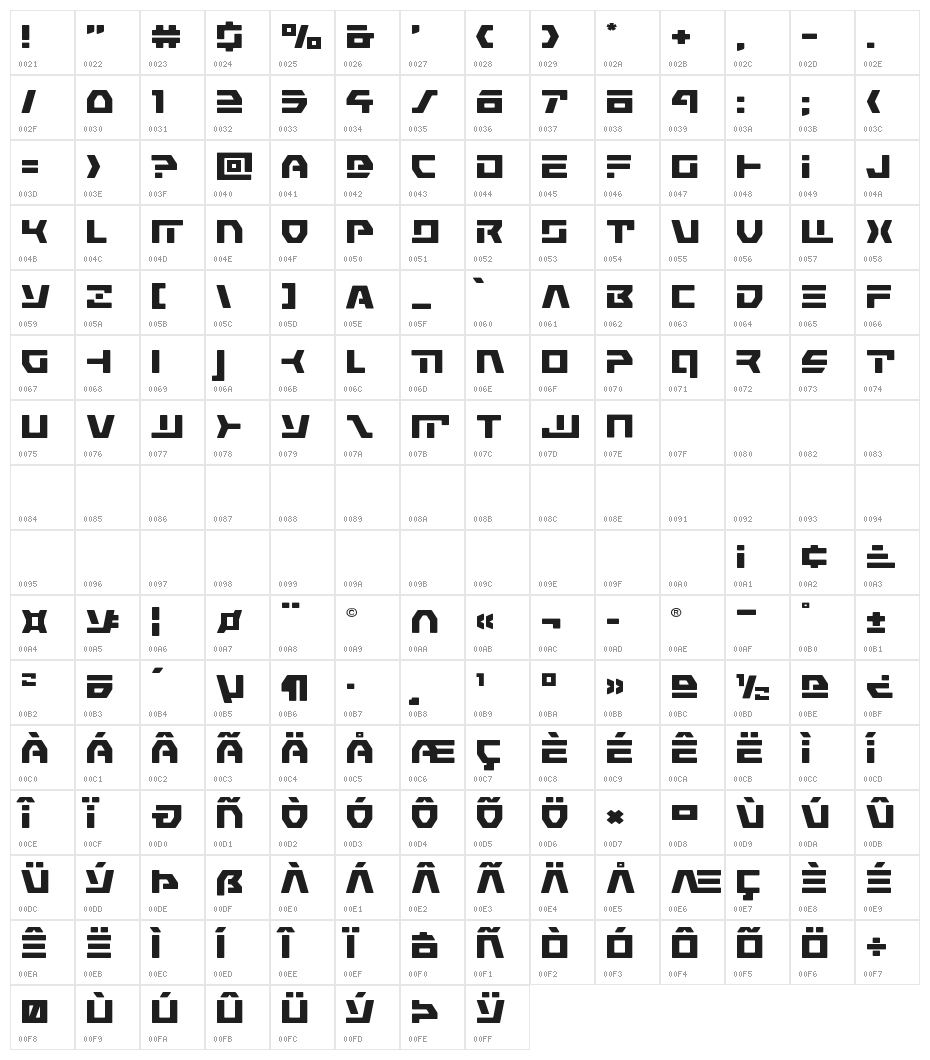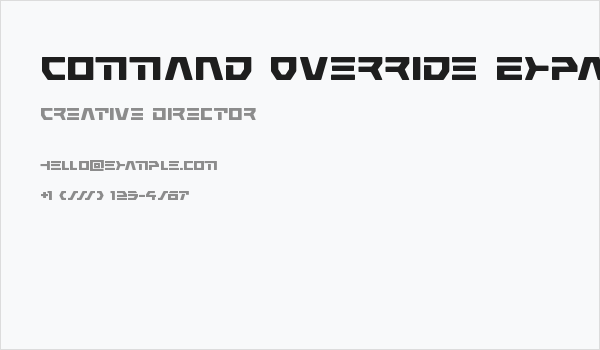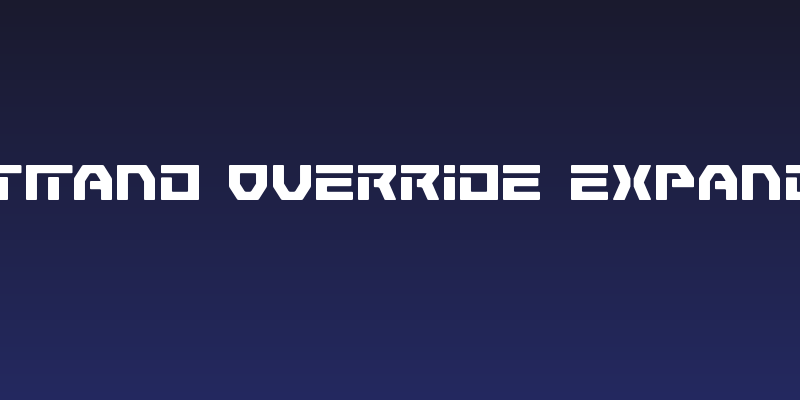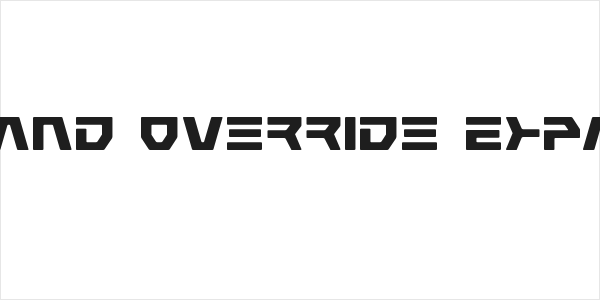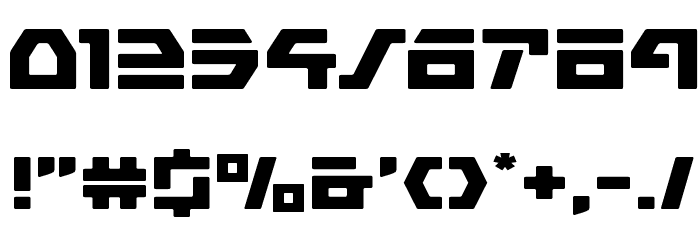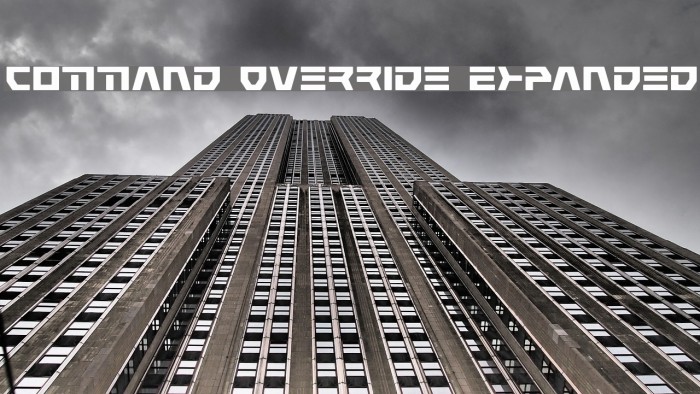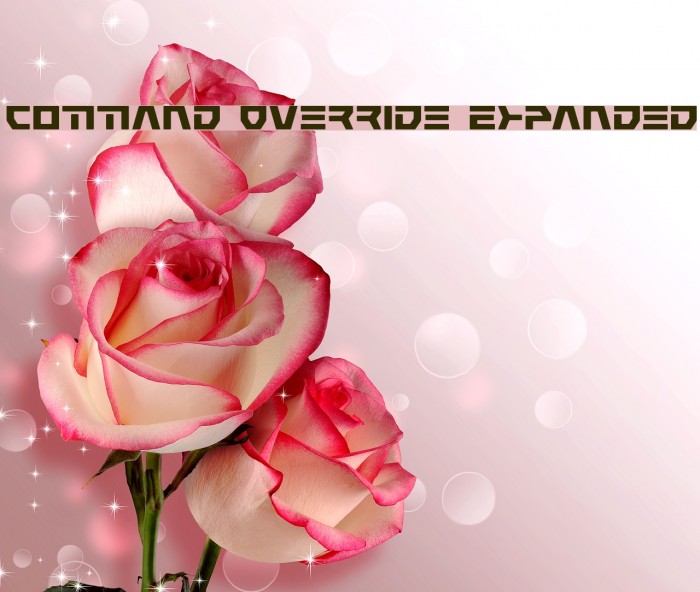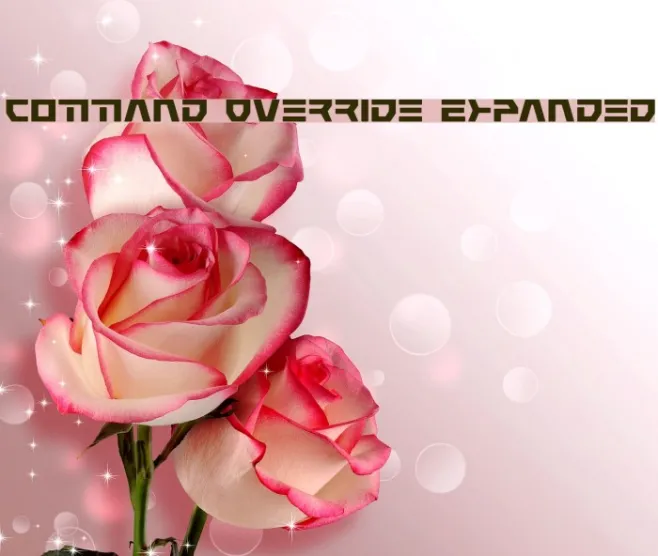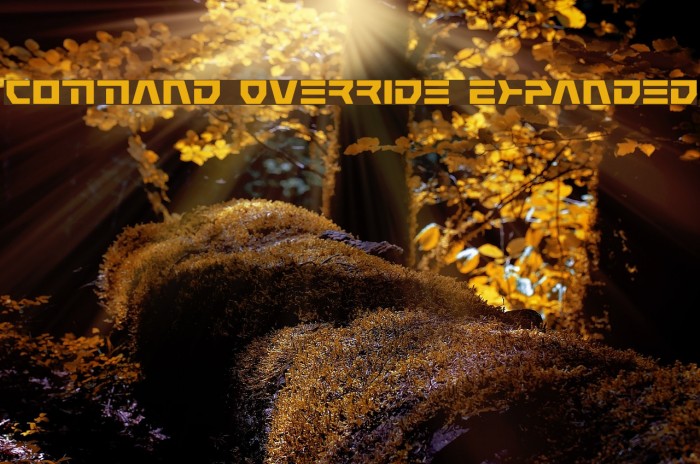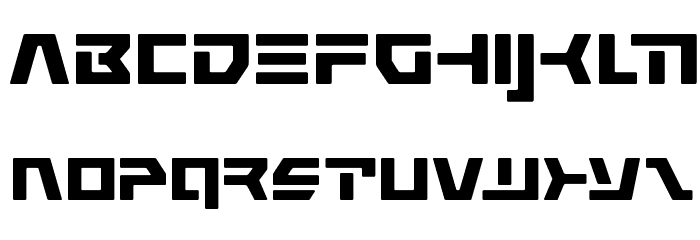
Command Override Expanded Font
Command Override Expanded Description
This font features a bold, futuristic design with geometric shapes and sharp angles. The characters are constructed with thick, uniform strokes that give a sense of strength and modernity. The uppercase and lowercase letters maintain a consistent style, with a distinct blocky appearance. Numbers and special characters follow the same design principles, ensuring a cohesive look across all glyphs. The font's expanded width and tight character spacing enhance its bold presence, making it ideal for impactful visual statements.
| Proposed Projects | Perfect for sci-fi themed projects, technology branding, video game titles, and modern posters. |